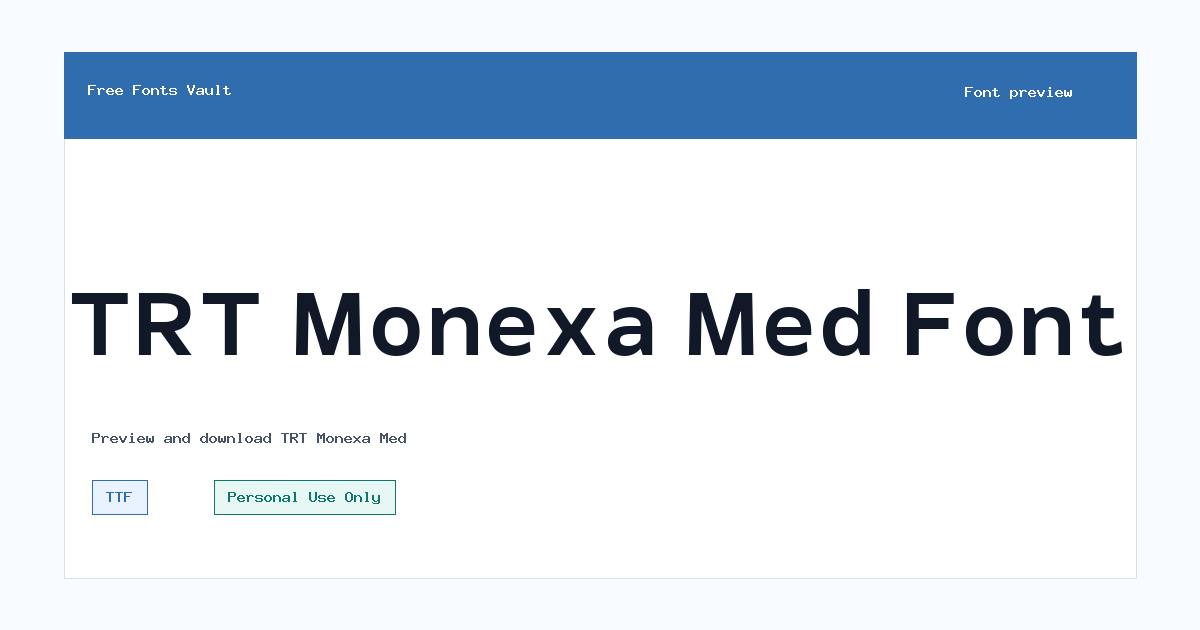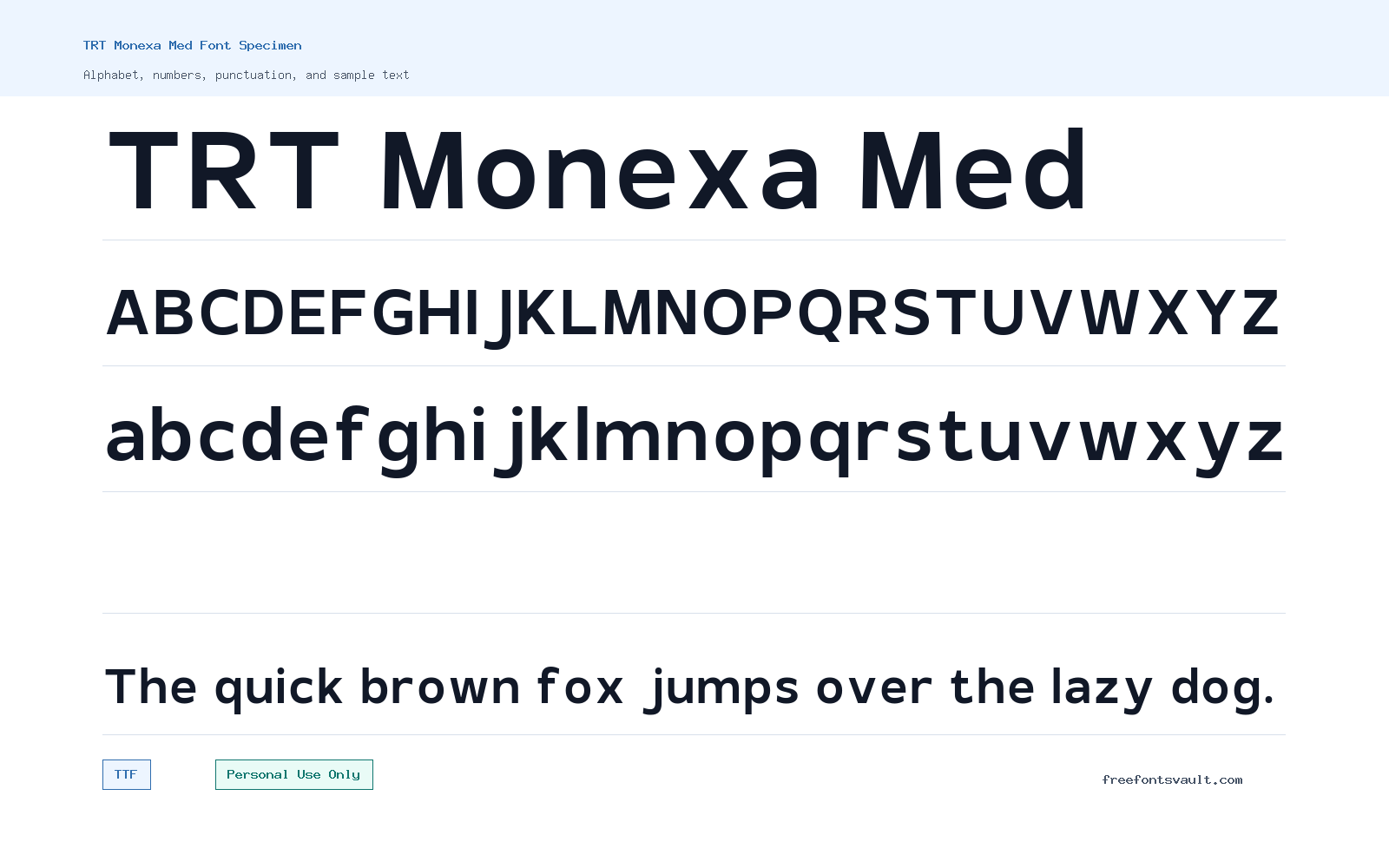
TRT Monexa Med
- Designer Hanif Dwi Sulistyo of Truetype
- Foundry Truetype
TRT Monexa Med font.
TRT Monexa Med is a medium-weight sans serif font from the TRT Monexa family. It is a practical choice when you want clean letterforms with more presence than a light style, while still keeping text calmer than a heavy display weight.
About TRT Monexa Med
TRT Monexa Med is best approached as a clean sans serif option for short design settings. The available font file is a TTF in a normal style with a 500 weight, so it sits around the medium range rather than feeling extra thin or bold. That makes it useful for titles, brand-name trials, poster headings, social graphics, and interface mockups where you want a balanced amount of weight without making the words feel too loud. Since the family name and license text describe it as a sans serif font, visitors can expect a cleaner, simpler structure than serif or script fonts, but it is still worth testing the exact spacing, curves, and punctuation in the live preview before using it in a finished layout.
For logo work, TRT Monexa Med may work well as a starting point for clean wordmarks, especially when the brand direction needs a simple sans serif base. Try it first with the exact business name, then check how the uppercase letters, lowercase letters, numbers, and common marks behave together. For posters and web mockups, use it for headlines, section labels, navigation concepts, or short promotional lines. If you plan to use it for longer paragraphs, test several lines at smaller sizes before committing, because many medium-weight sans serif fonts look strongest in headings and short blocks rather than dense reading text. Keep enough line spacing and avoid pairing it with another sans serif that looks too similar, as that can make the design feel flat. A serif text font, a quiet humanist sans, or a restrained mono font can give better contrast depending on the project.
- Medium 500 weight, useful for headings and short text where a regular weight feels too light
- Sans serif family description, making it a cleaner option for modern layouts and mockups
- Single available variant, which keeps selection simple but limits weight and style flexibility
- Logo concepts and clean wordmark drafts
- Poster headings and event graphics
- Website hero text and landing page mockups
- Social media quote cards, banners, and thumbnails
- Brand exploration boards and presentation titles
- Short labels, menu items, and UI-style design tests
TRT Monexa Med is credited to Hanif Dwi Sulistyo of Truetype, with Truetype listed as the foundry.
Start by testing the exact words you plan to use, especially if you are making a logo or headline. Check uppercase and lowercase spacing, numbers, punctuation, and how the font behaves at both large and small sizes. For pairing, avoid choosing another plain sans serif with a nearly identical feel. Use contrast instead: a readable serif for body copy, a softer sans serif for supporting text, or a simple mono style for small technical labels. Because only one medium TTF variant is listed, create hierarchy through size, spacing, color, and layout rather than relying on multiple weights.
What kind of font is TRT Monexa Med?
It is described as part of a sans serif font family. The listed file is a normal-style TTF with a medium 500 weight.
Is TRT Monexa Med good for posters?
It can be a useful choice for poster headings, event names, and short display lines. Test the preview at the size you need and leave enough spacing so the text stays clear.
Does TRT Monexa Med include bold or italic styles?
Only one listed variant is shown: a regular variant in normal style with a 500 weight. If you need more weights or italics, check whether the full family is available from the foundry.